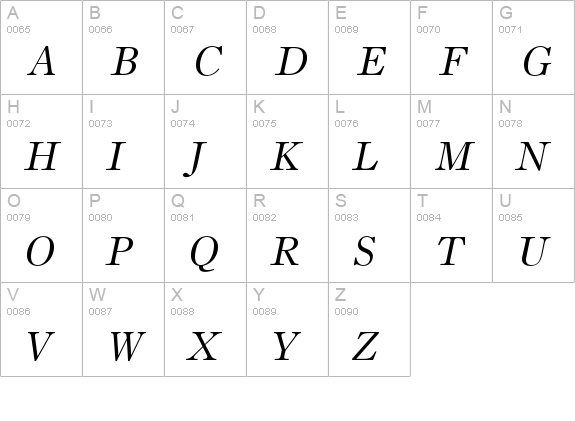
Bruce Old Style Italic Font Details
Bruce Old Style Italic is a distinctive, italic variant in the Bruce typeface family \xE2\x80\x94 well suited to design and typography projects.
Bruce Old Style Italic font is a classic and elegant typeface that exudes sophistication and charm. Its distinctive italic design adds a touch of flair to any project, making it a perfect choice for invitations, branding, and editorial design. The flowing curves and graceful serifs of Bruce Old Style Italic font are sure to captivate your audience and elevate your designs to new heights. Best of all, Bruce Old Style Italic font is available for free download at FontsMarket.com. You can easily access this timeless font and enhance your creative projects without any cost. Don't miss out on the opportunity to add this versatile and stylish typeface to your collection today!